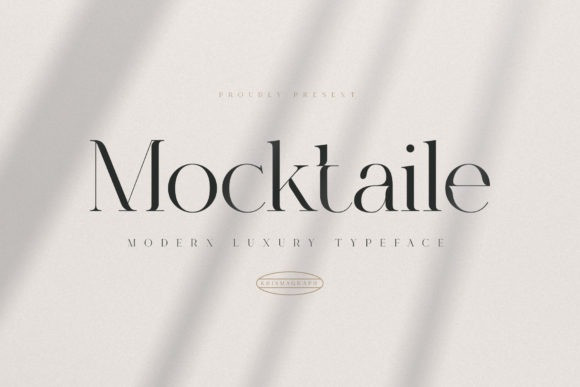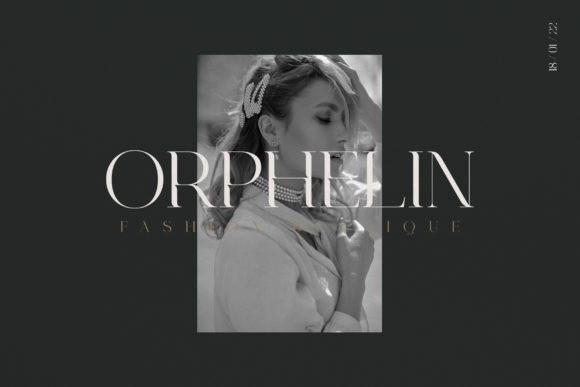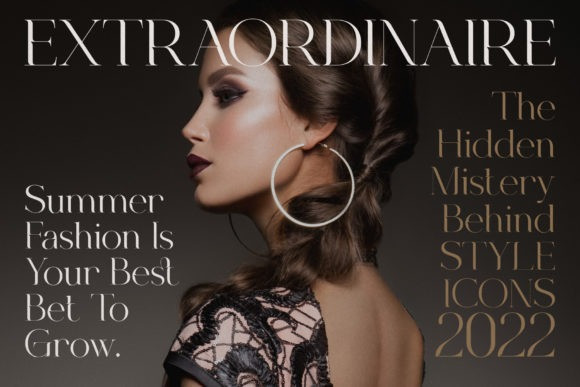
Mocktaile Font
Mocktaile is a cool and delicate serif font. This original look will appeal to a wide range of crafty ideas, from letterheads and titles, to stationery.